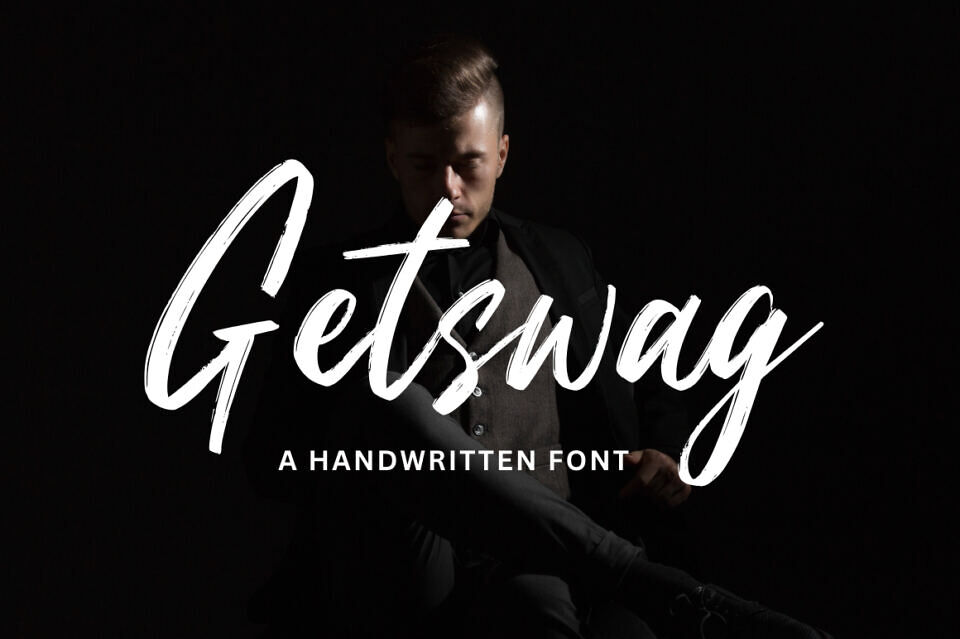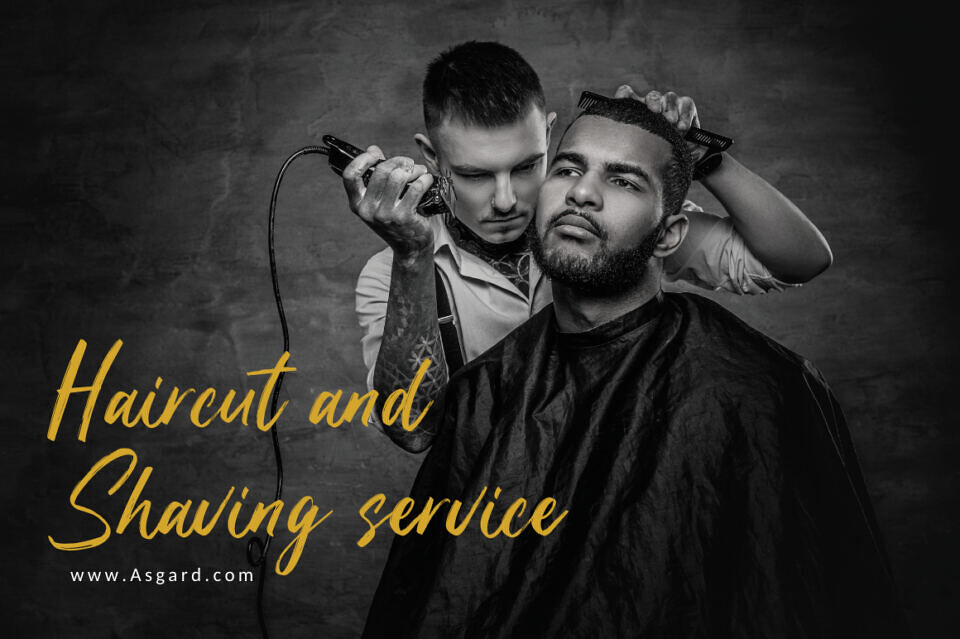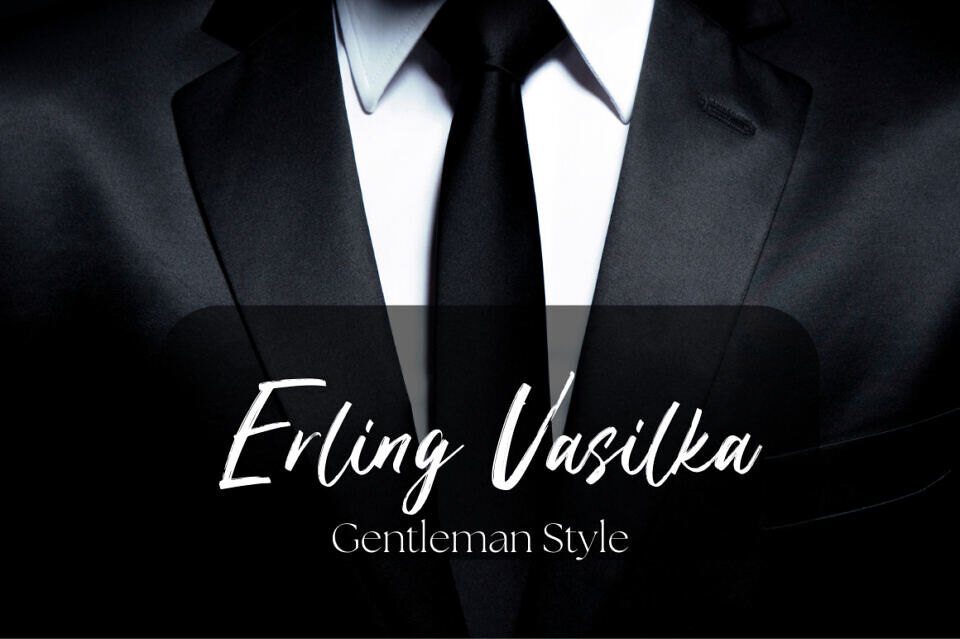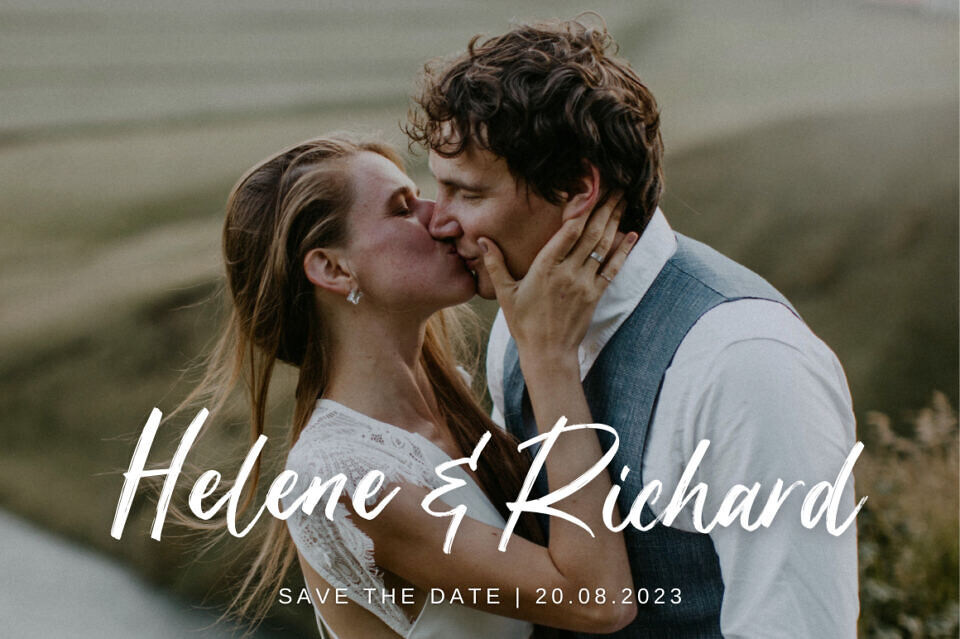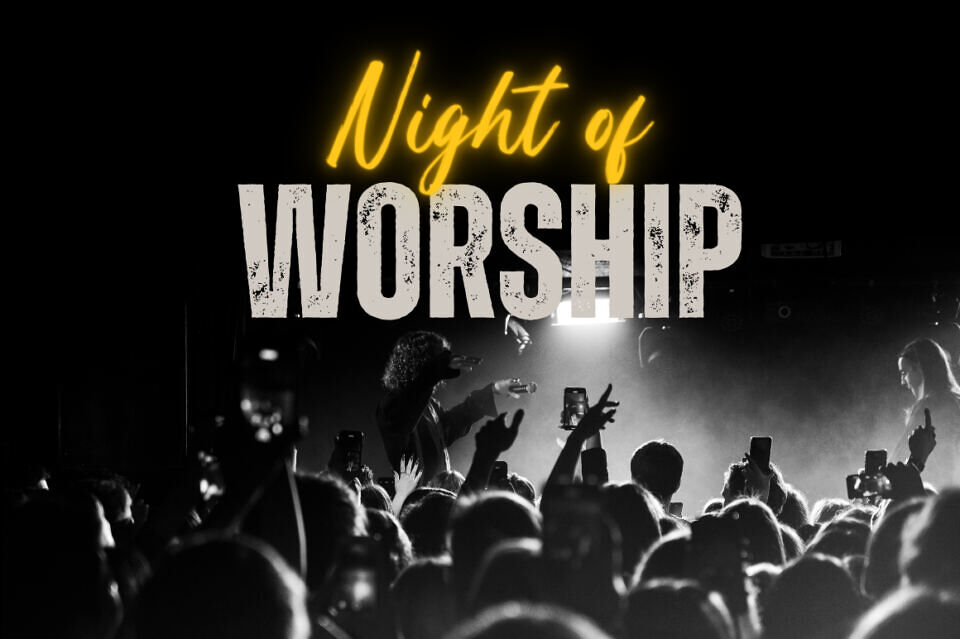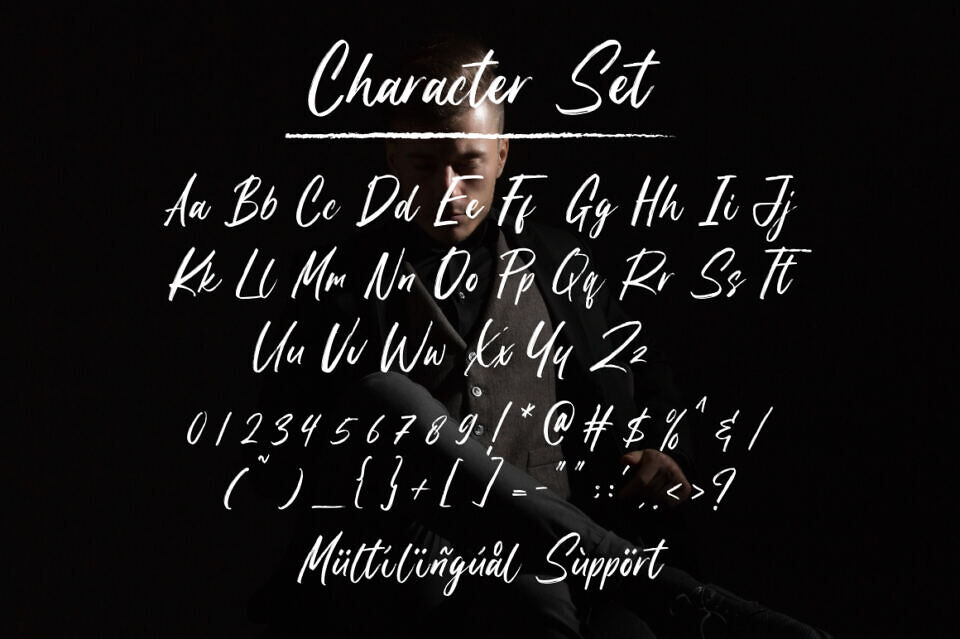
Introducing “Getswag,” a handwritten brush font that brings an authentic, handcrafted feel to your designs. With its dynamic strokes and spontaneous flair, this font captures the energy of brush lettering.
Perfect for projects that seek a casual and expressive vibe, such as posters, logos, or merchandise. “Getswag” adds a touch of personality and character to your text, ensuring it stands out with a stylish and contemporary edge.